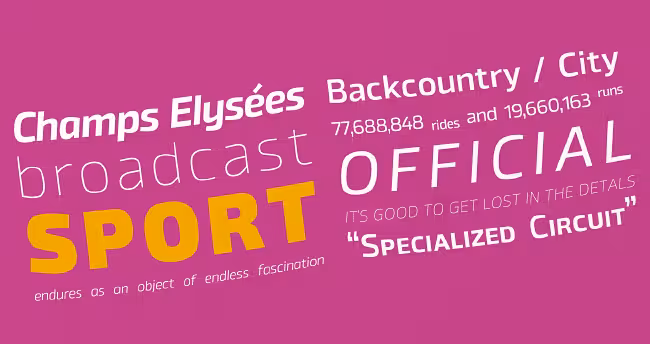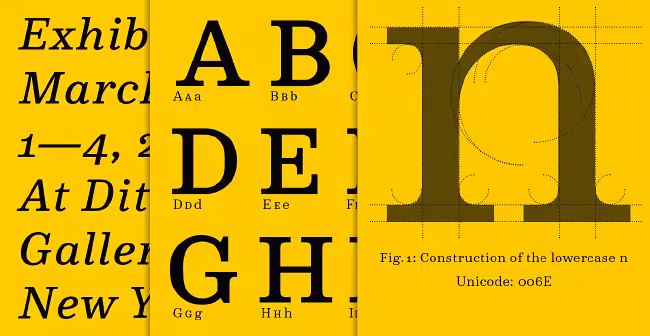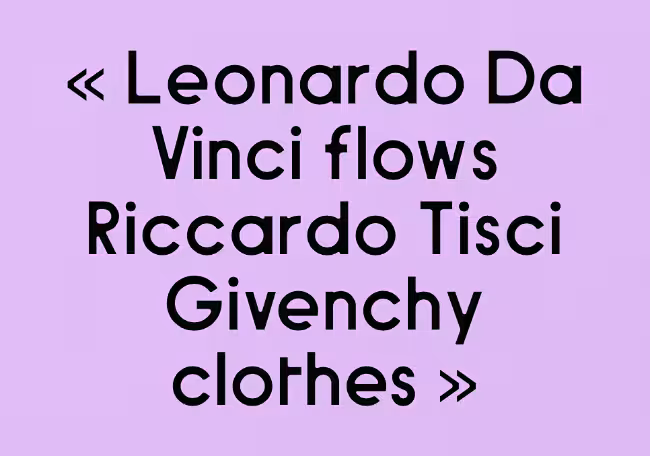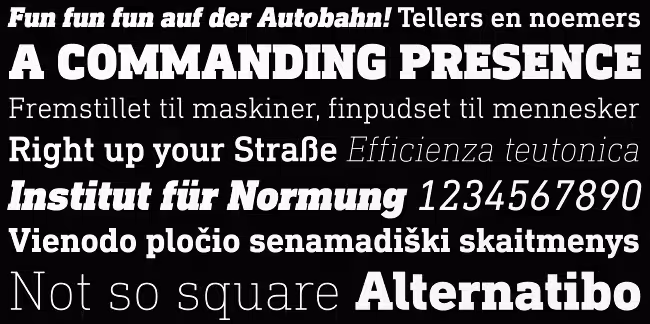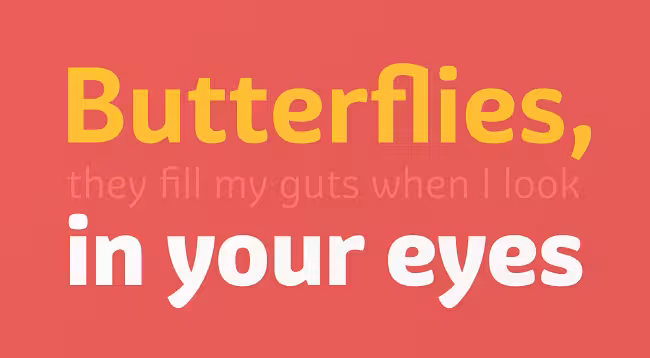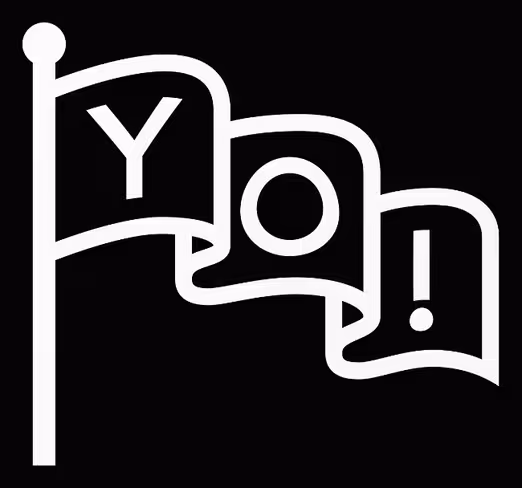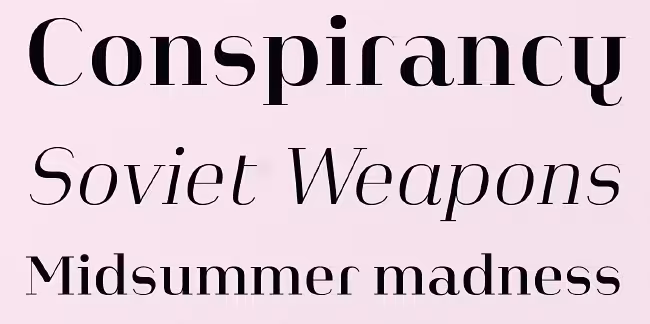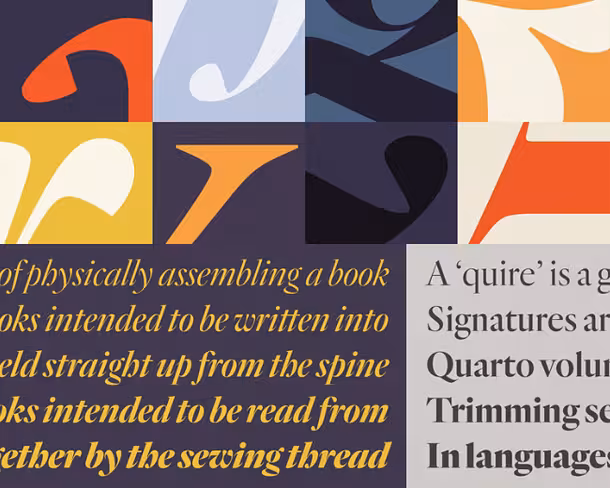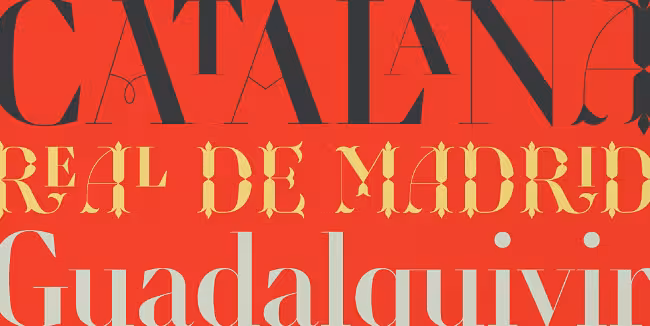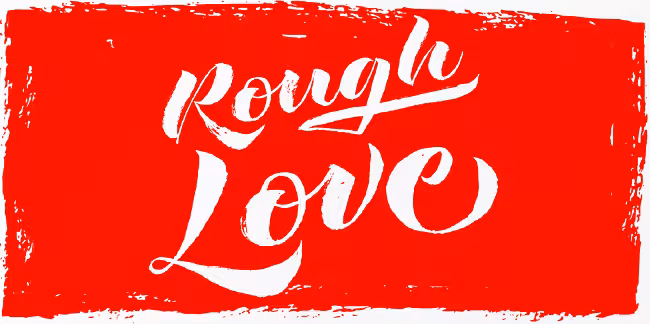
20 of the best typefaces released in November 2014
November brought us a month of diverse typefaces, from modern to classic, san-serif to serif, lightweight to heavy. Here’s our picks from the past month.
Rene Bieder: Galano Grotesque
Galano Grotesque is a geometric sans in the tradition of Futura, Avant Garde, Avenir and the like.
Linotype: DIN Next Slab
DIN Next Slab harmonizes perfectly with the styles of DIN Next: the basic letterforms and weights are identical.
FontFont: FF Milo Slab
FF Milo Slab is the newest edition to Mike Abbink’s best selling FF Milo family.
FontFont: FF Bauer Grotesk
FF Bauer Grotesk is revived and better than ever with six weights and italics. This is the must-have Grotesk.
Mika Melvas: Ahkio
Ahkio’s roots are in 1930s sign painting and showcard lettering but with a modern and individual twist.
Font Bureau: Tilda
Tilda is a script typeface with size-specific styles by Jessica Hische.
Harbor Type: Graviola
With semi-rounded terminals, Graviola is soft and friendly.
Positype: Rough Love
The only OpenType font with hugs and kisses drawn right in!
Rosetta Type: Skolar Sans
Skolar Sans is an extensive typeface family for the age of responsive design. From gently thin to extra bold, the four subtly graded width variants will fit all your content needs.
The Northern Block: Byker
Byker is a geometric sans that blends technology and handcrafted skill.
Hoefler & Co: Quarto
A fiery display face rooted in one of typography’s most significant periods, Quarto is a study in contrast and control.
Latinotype: Triump
Triump is a simple sans serif with 14 weights.
Atlas Font Foundry: Heimat Didone
Heimat Didone is the high contrast serif typeface family within the Heimat Collection, also containing Heimat Sans, Heimat Mono and Heimat Stencil.
Grilli Type: GT Haptik
GT Haptik is a monolinear geometric grotesque typeface. Its uppercase letters and numbers were optimized to be read blindfolded and by touching them.
Typofonderie: Retiro
Severe, austere and yet, full of life, Retiro is a vernacular version of Castilian and Andalusian in a typical Didot.
Kyle Wayne Benson: Jeames
Jeames brings familiarity to the often detached feeling extended serif genre. The curved, heavy, joints let the letters bounce along while the proportions and contrast keep your eyes grounded.
Parachute: Bague Round
Bague Round is a soft contemporary geometric typeface which blends distinct minimalist characteristics with mainstream details.
Drew Melton: Handsome Script
Handsome Script is perfect for luxury products and special occasions such as weddings or parties.
Unit: Common
Common is a beautifully modern sans-serif typeface.
Nouvelle Noire: Colroy
Colroy is a superbly and subtly crafted contemporary Clarendonlike typeface.